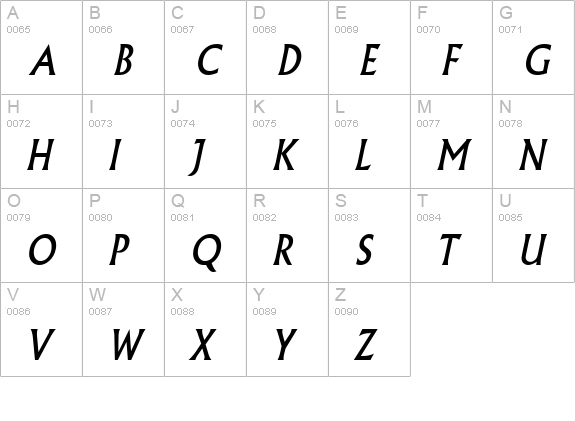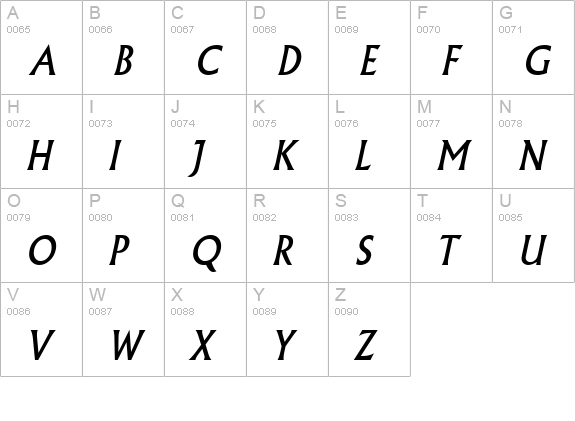
Flair Condensed Italic Font Details
Flair Condensed Italic is a distinctive, condensed-width, italic variant in the Flair typeface family \xE2\x80\x94 well suited to design and typography projects.
Introducing Flair Condensed Italic font - a sleek and elegant typeface that exudes sophistication and style. Its slanted design adds a touch of flair to any project, making it perfect for adding a touch of modernity to your designs. The condensed style of this font allows for space-saving usage while maintaining readability. Flair Condensed Italic font is ideal for branding, advertising, invitations, and other design projects that require a touch of finesse. Best of all, Flair Condensed Italic font is available for free download at FontsMarket.com. So why wait? Enhance your designs with the stylish and versatile Flair Condensed Italic font today!